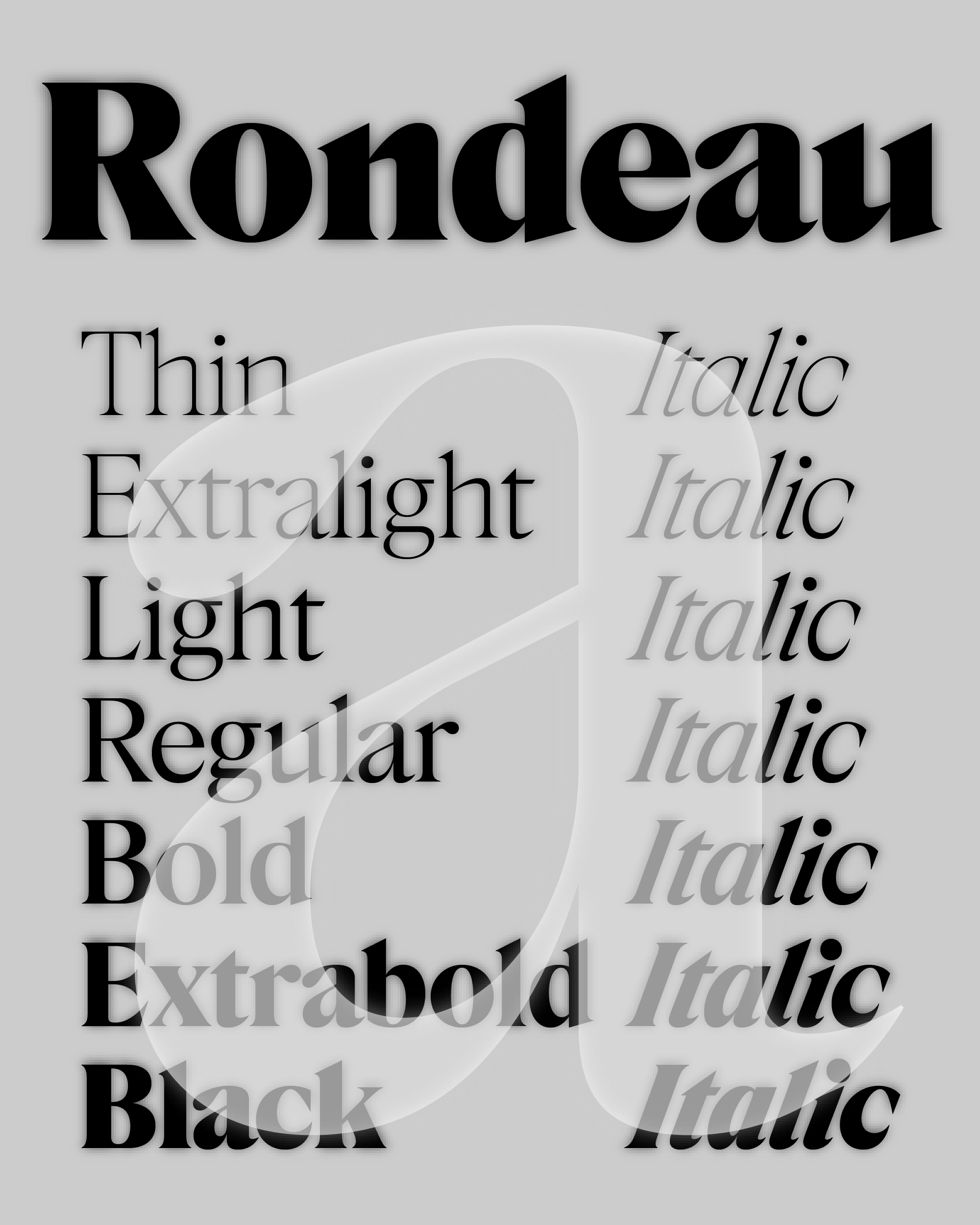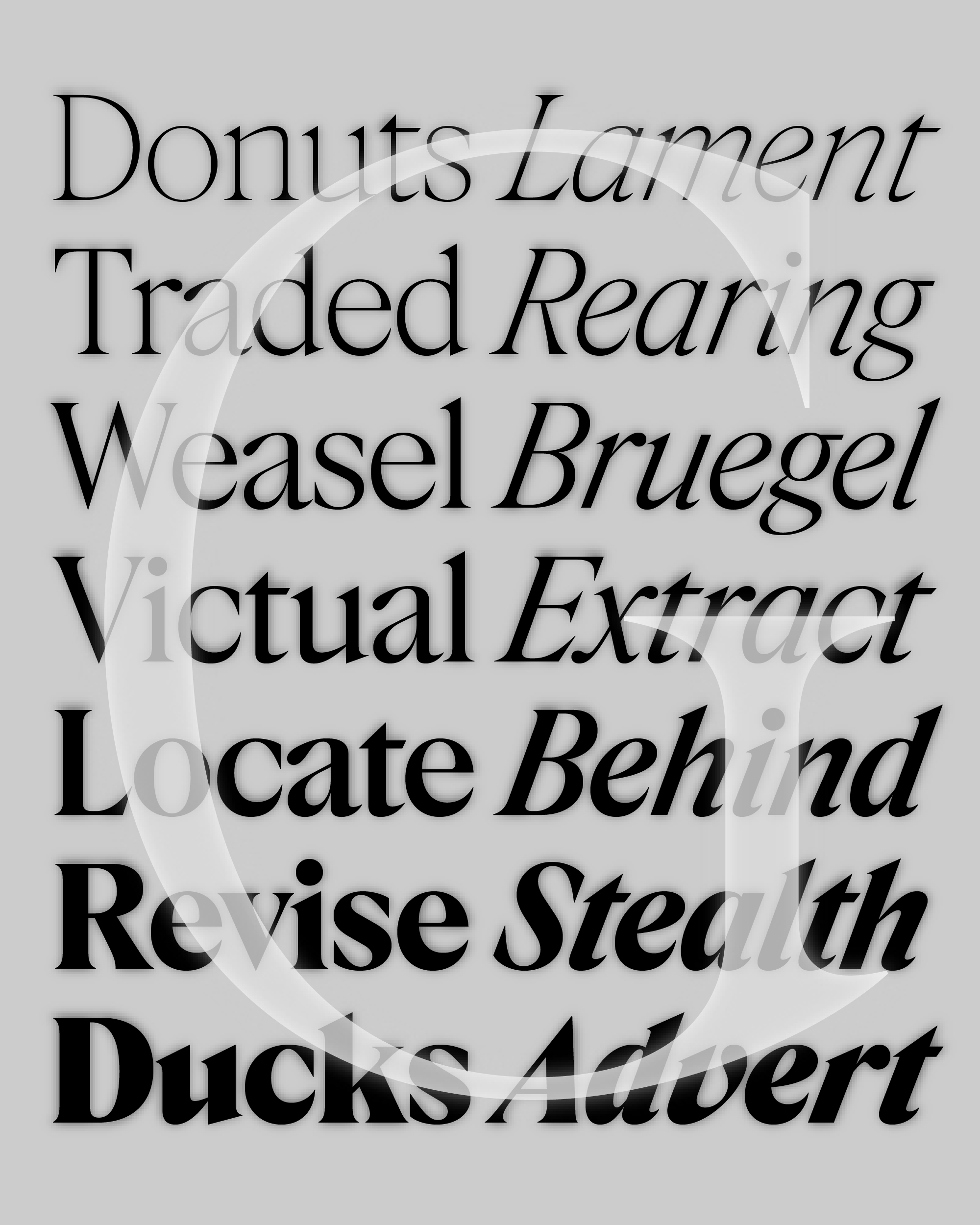
Rondeau is a serif typeface rooted in mid 19th century French Elzevirs. Often cited as the first revivals in type history, Elzevirs offered an alternative to the immensely popular Didones by drawing inspiration from historic forms, namely the Roman inscriptions and European Renaissance type. In addition to acknowledging the work of Louis Perrin and his peers at the time, Rondeau takes cues from type that was clearly influenced by French Elzevirs closer to the 20th century. Typefaces like the Post/Canton Series and French Old Style (Barnhart Brothers & Spindler), Römische Antiqua (Genzsch & Heyse 1888) and Romanisch Antiqua (Schelter & Giesecke 1895) informed its development.
Due to its high contrast and dense spacing Rondeau is intended for rather large sizes. The lighter weights are delicate yet poised, maintaining the clarity and grace of the original Elzevirs, whereas the darker weights lack the typical brittleness of heavy display serif typefaces. There is still tons of contrast and sharpness to go around, but without compromising the overall robustness. Steep and narrow 21 degree italics are not based on any specific historical model. Even though there are evident cursive features, Rondeau’s italics are more rational and closely tied to the design of its upright counterpart.